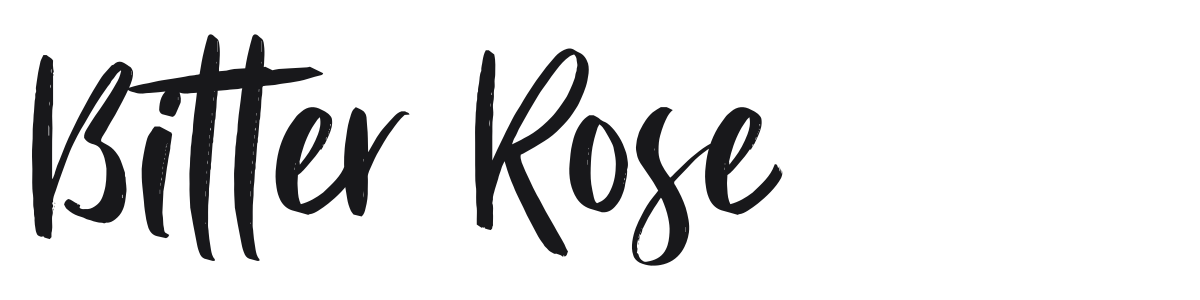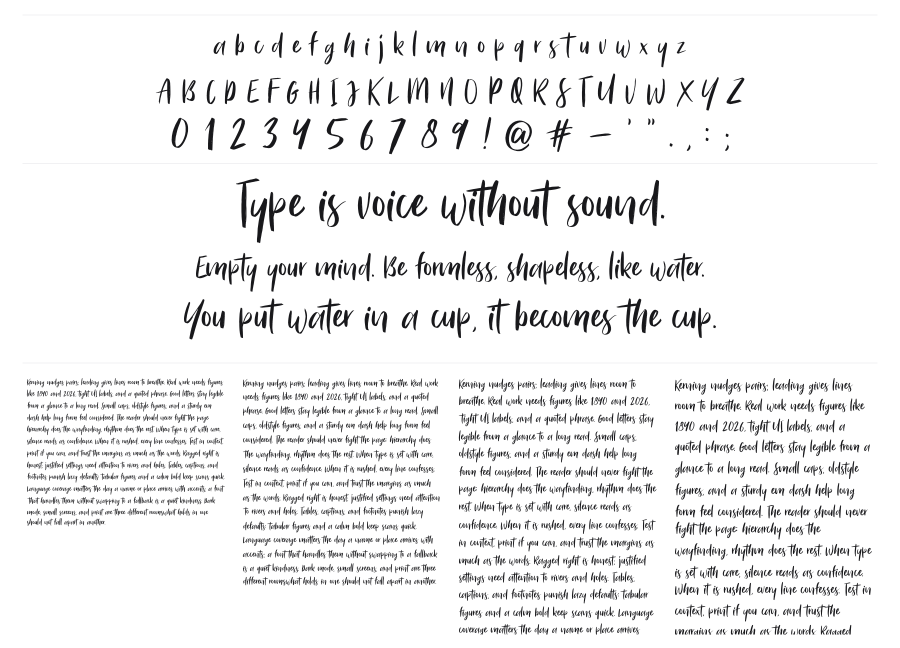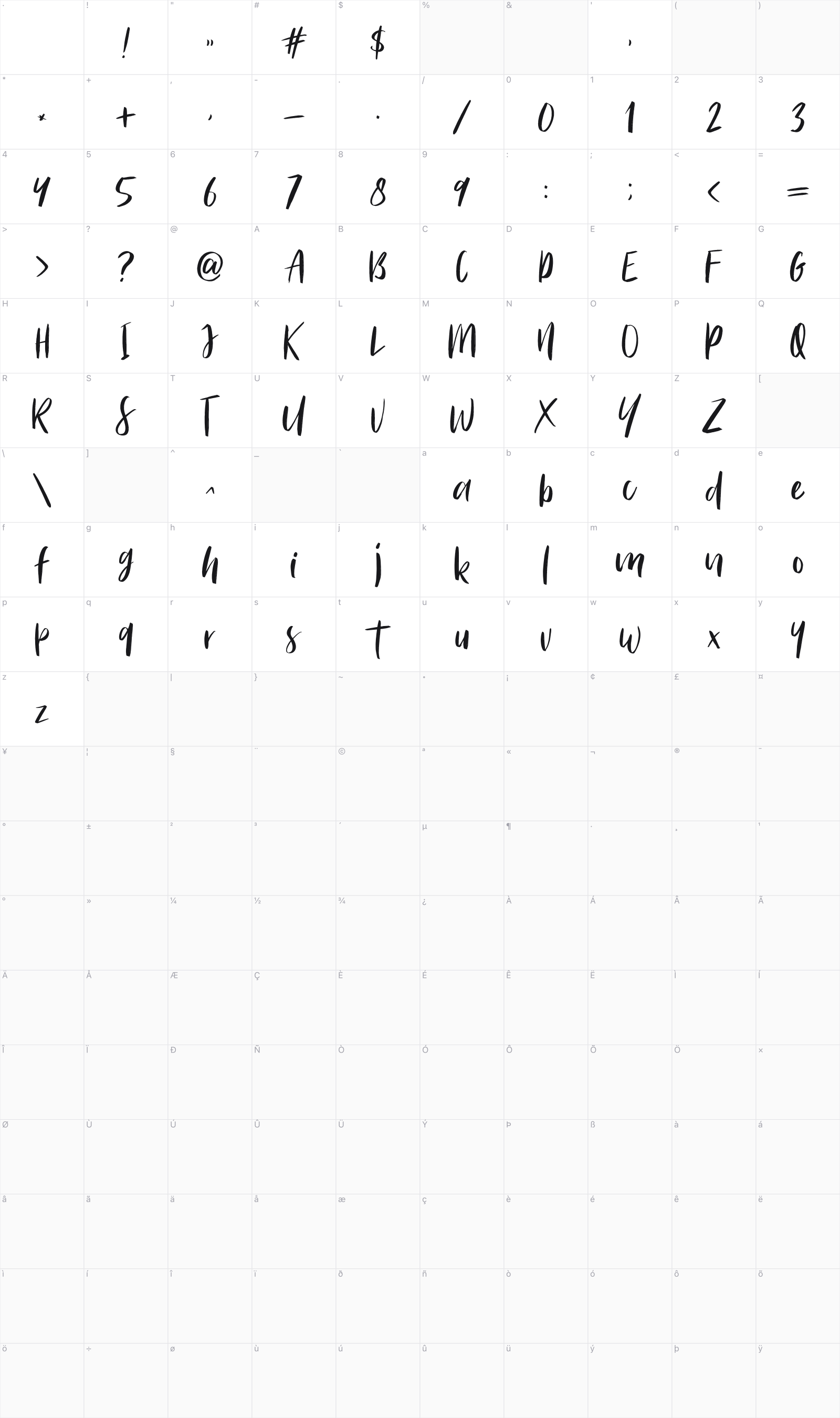
Bitter Rose
Bitter Rose is a casual brush script with lively ink texture and strong contrast between thick and thin strokes. The characters flow with a natural, hand-lettered energy, with generous ascenders and expressive swash details. It sits comfortably in branding, packaging, and social graphics where a handcrafted warmth is the goal.